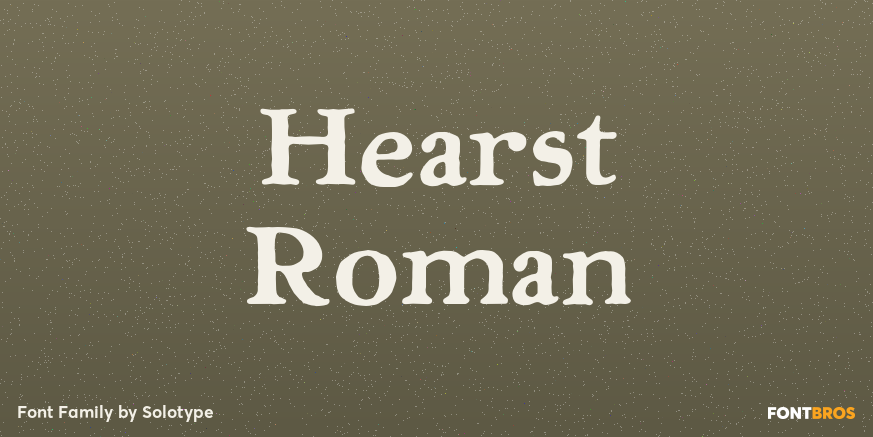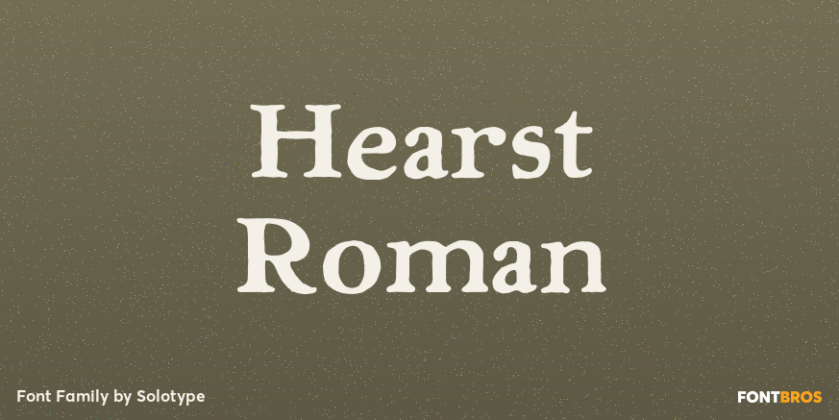
HomeFont BrosSerifHearst Roman Serif Hearst Roman FacebookXPinterestWhatsApp 1 of 1 About Hearst Roman A product of the Inland Type Foundry, some say stolen from a hand lettering job done by Goudy. (Goudy was one of those who said it!)  DOWNLOAD NOW People also explored A Cat Jump Lf Font Beer Box Mockup Wedding Mandala Font Berliansa Wristen Font Cornpile Variable Anthela Filmotype Jessy Kremato Font 283 0 TagsHearst Roman Font Previous articleRegister Sans BTNNext articleAmerican Monograms LEAVE A REPLY Cancel reply Comment: Please enter your comment! Name:* Please enter your name here Email:* You have entered an incorrect email address! Please enter your email address here Website: Save my name, email, and website in this browser for the next time I comment. Personal Use Free Deco Neue Wilde Personal Use Free Read more about this font Daisy Script Personal Use Free Read more about this font Talking on Personal Use Free Read more about this font Blue Highway Personal Use Free Read more about this font BLOG Free Fonts Risk: Why Free Fonts Can Be Dangerous for Designers Free Fonts Risk: Why Free Fonts Can Be Dangerous for Designers Using free fonts is a common practice in web and graphic design. However, the... Using Fonts in Digital Marketing: Tips to Strengthen Your Brand Identity To increase your work productivity, choose the most readable fonts. Free vs Paid Fonts: Why Investing in Premium Fonts Is Worth It